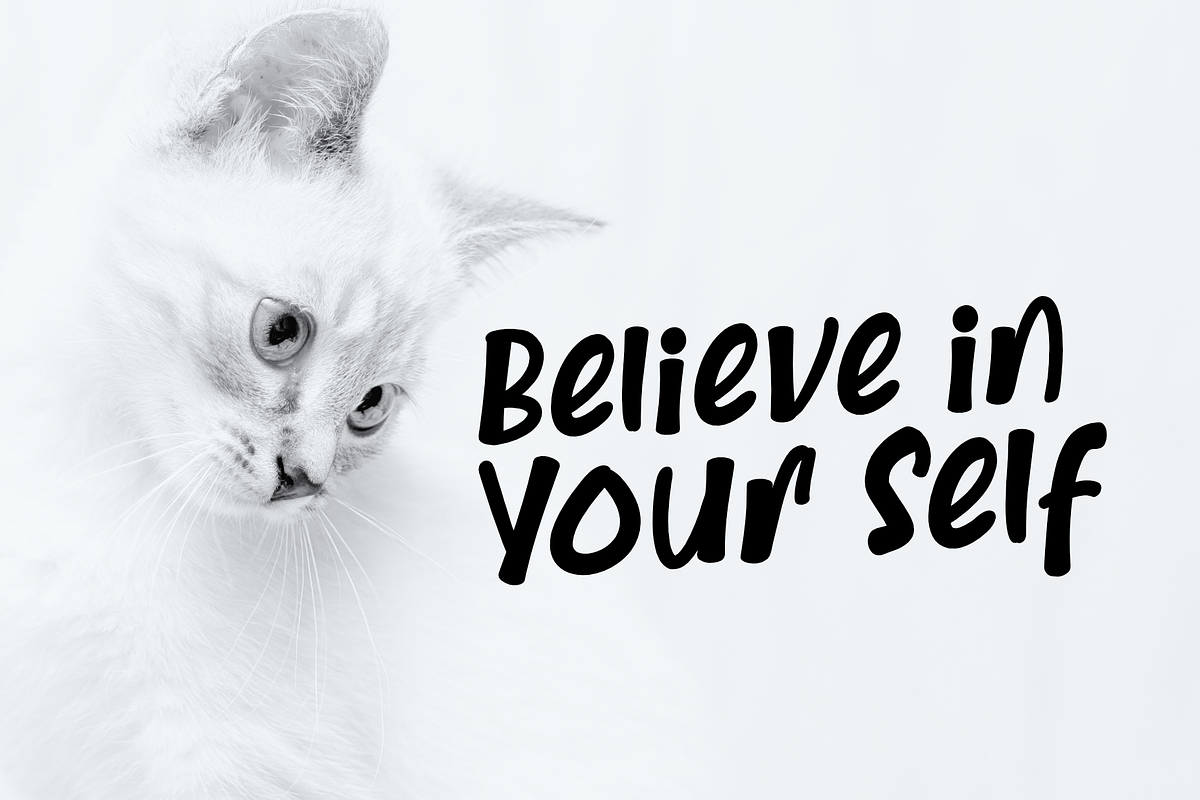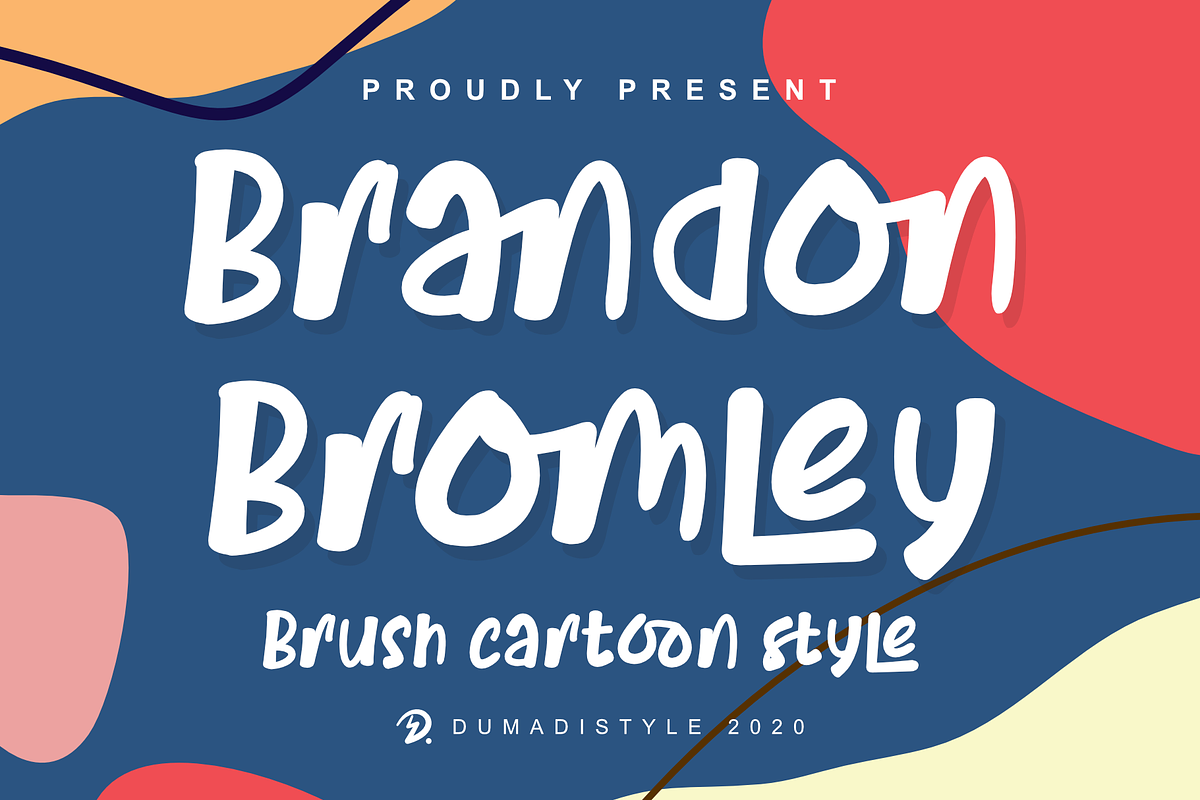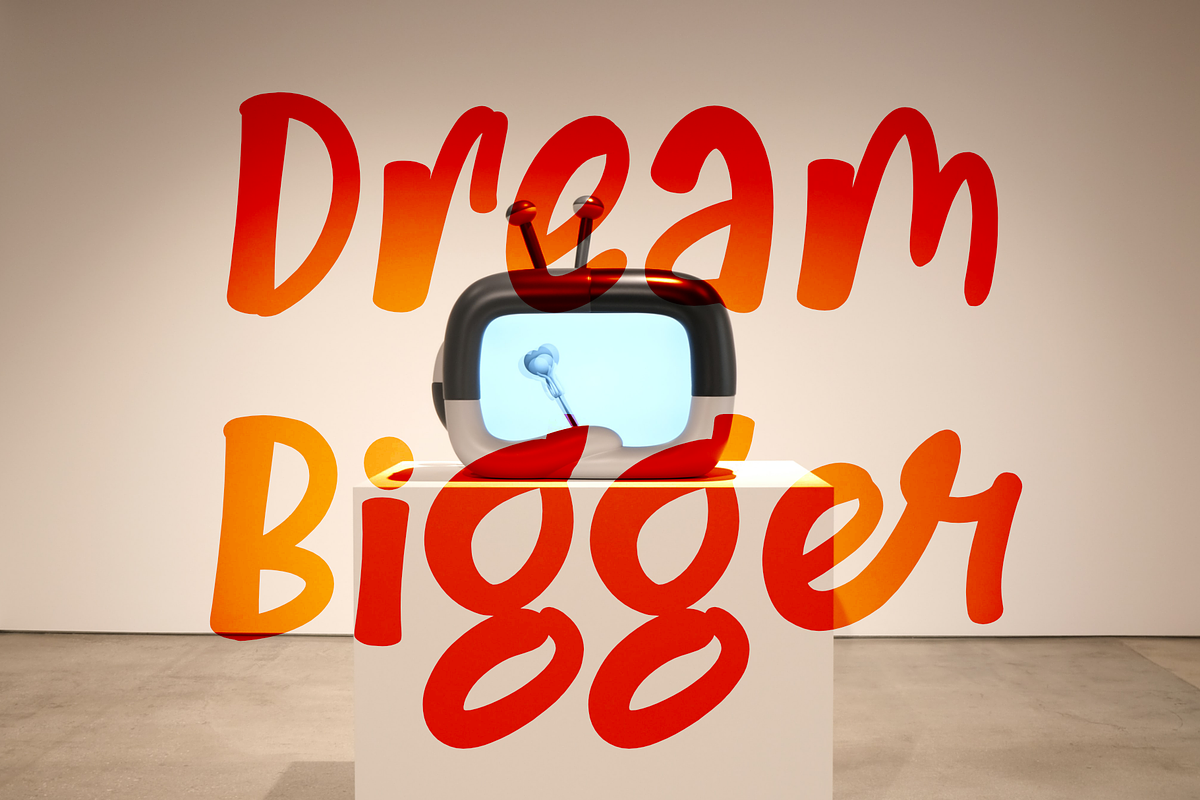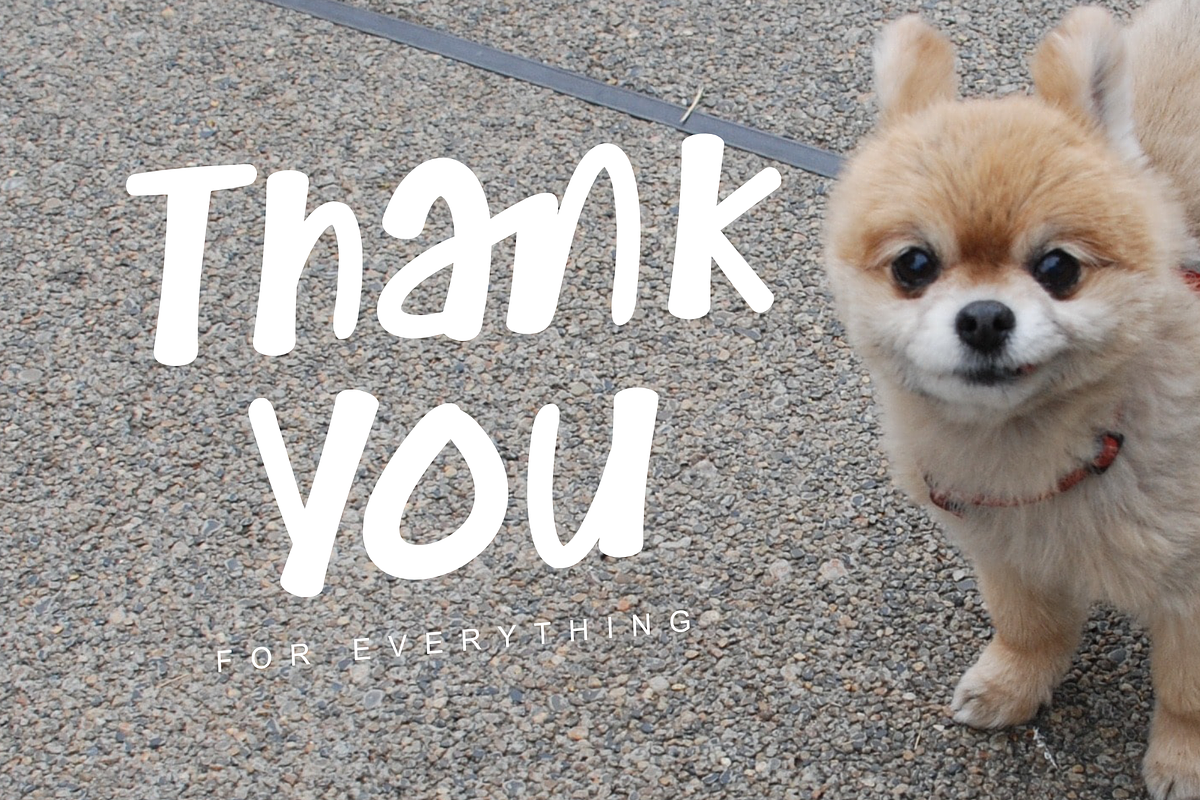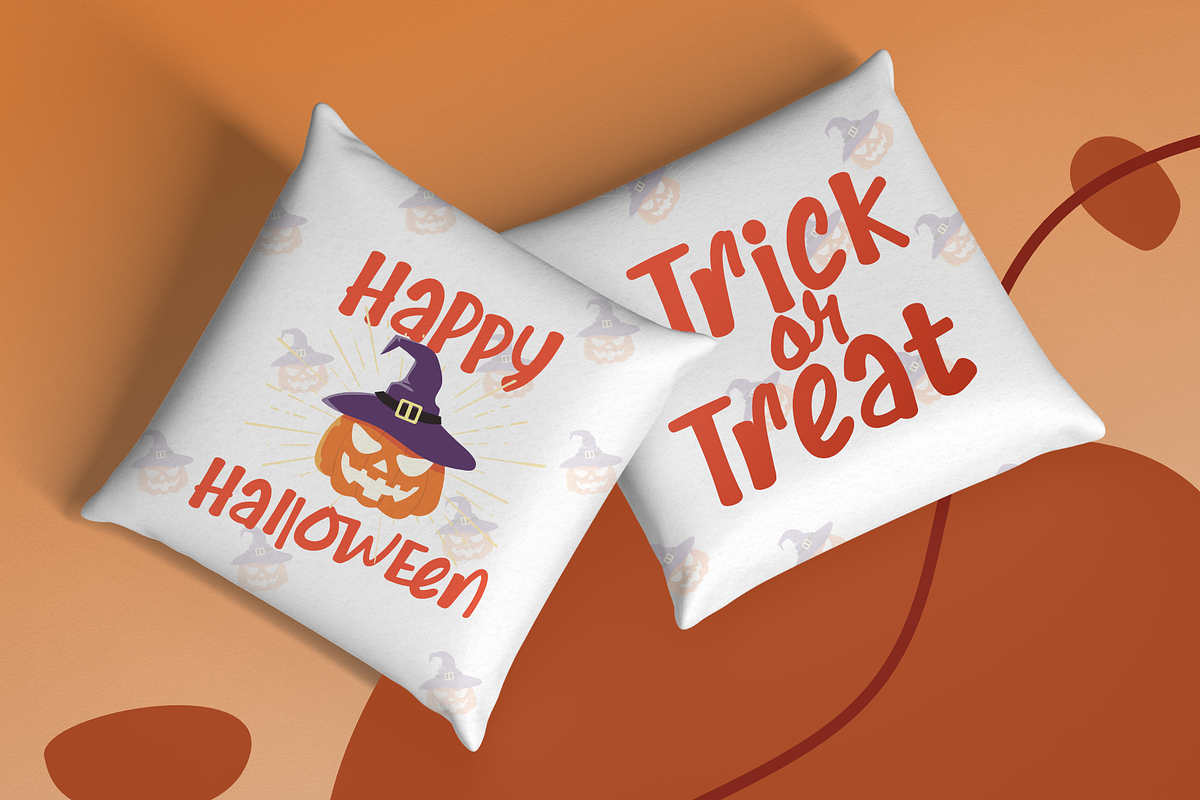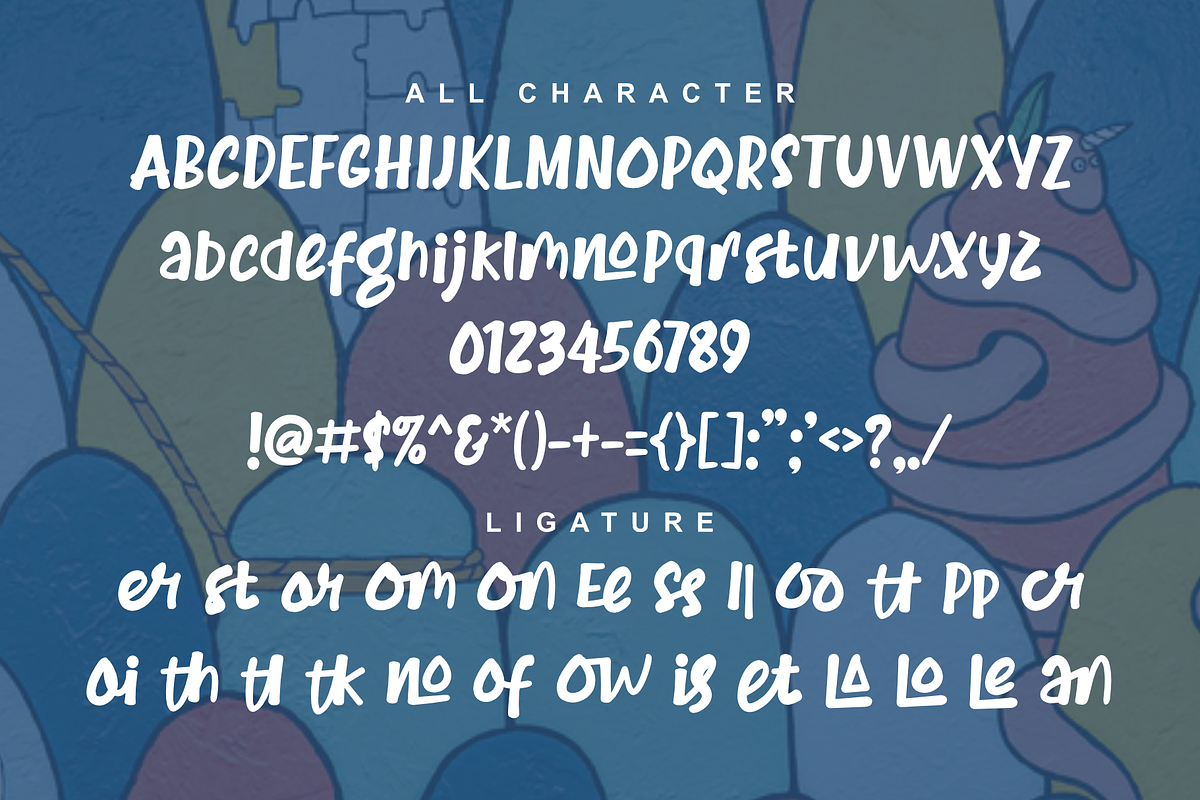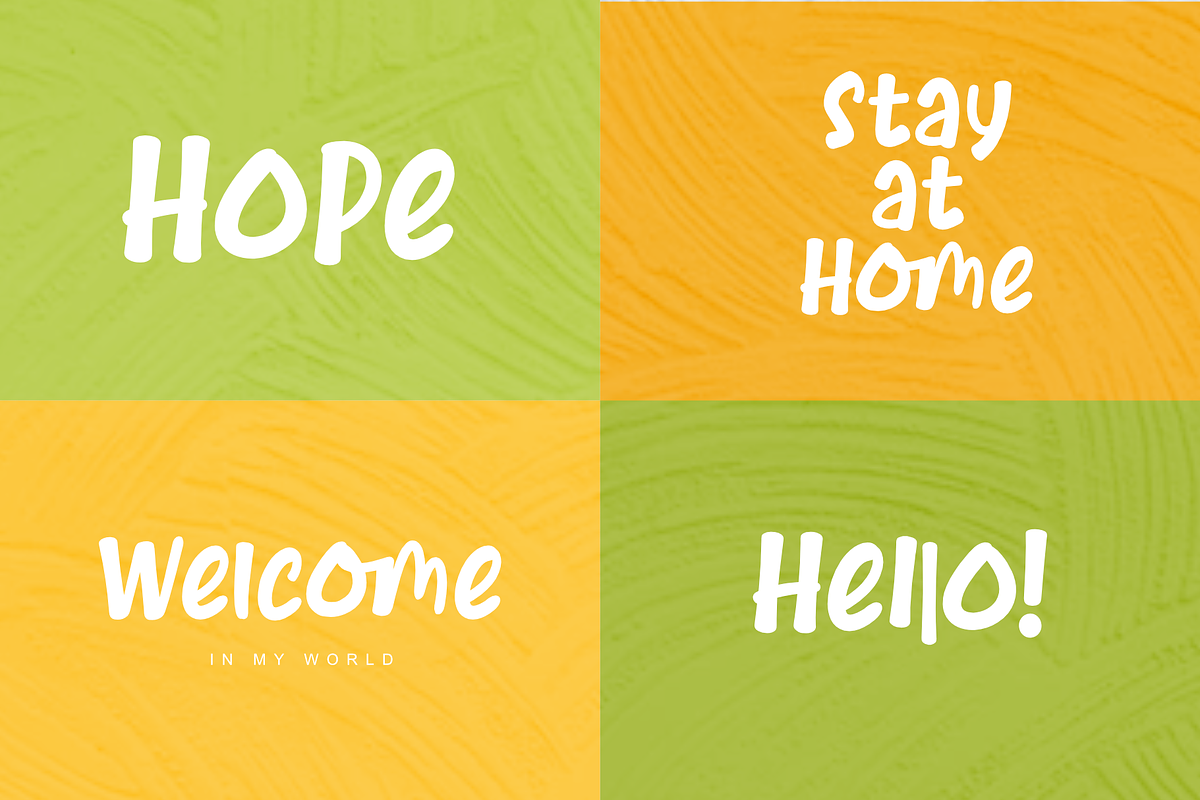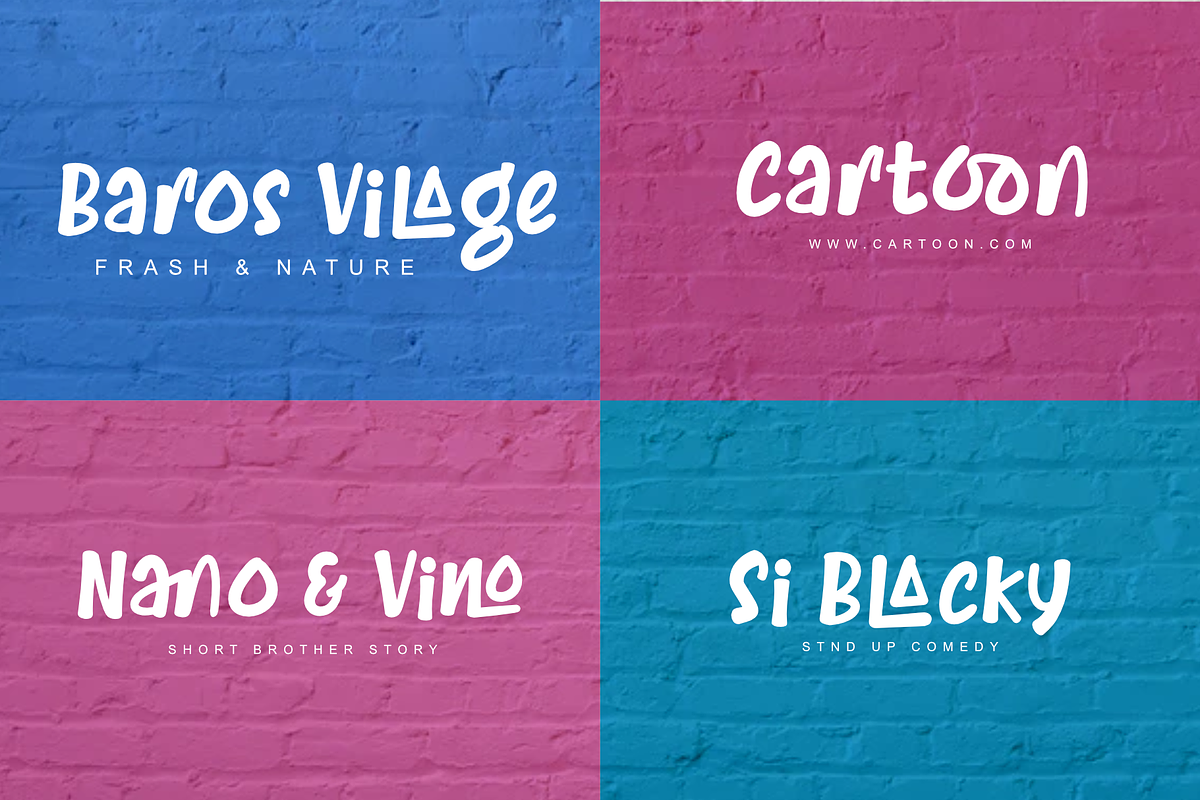
Brandon Bromley
Brandon Bromley is a Brush cartoon style font. Capital letters / lowercase letters are the same.
This font is perfect for quotes, movie titles, clothing designs, websites, social media, branding, children's designs, branding designs, blogs, logos, and more!